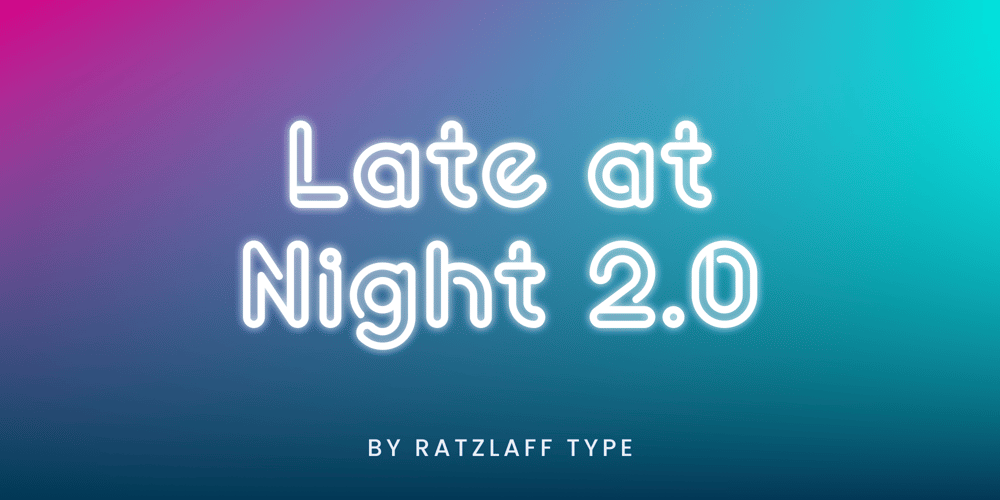
Late at Night
Late at Night Font Family was designed by Leonardo Ratzlaff, Gabriel Ratzlaff and published by Ratzlaff Type. Late at Night contains 1 styles and family package options. A high-quality display font with 278 glyphs—kerned with love—to create stunning posters, charming brands, and more.